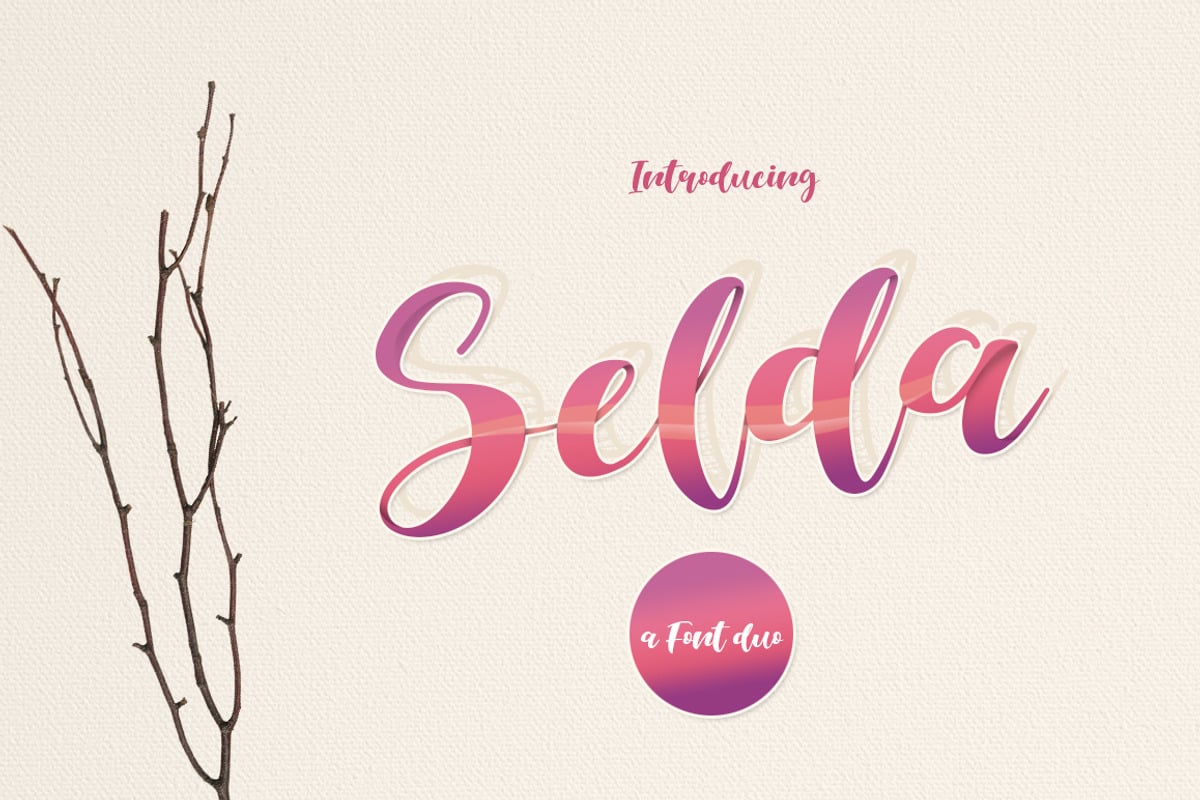
Selda Script Font Duo
Transform your designs with Selda Script, a cheerful modern calligraphy font duo perfect for adding personality to any project. This delightful typeface comes in two distinct styles: regular and sketch, giving you versatile options for logo design, branding, greeting cards, posters, and any creative project that needs a touch of modern elegance. Features: OpenType Features Uppercase & Lowercase characters Numeral & Punctuation marks PUA Encoded for easy access Multilingual support: ÀÁÂÃÄ...